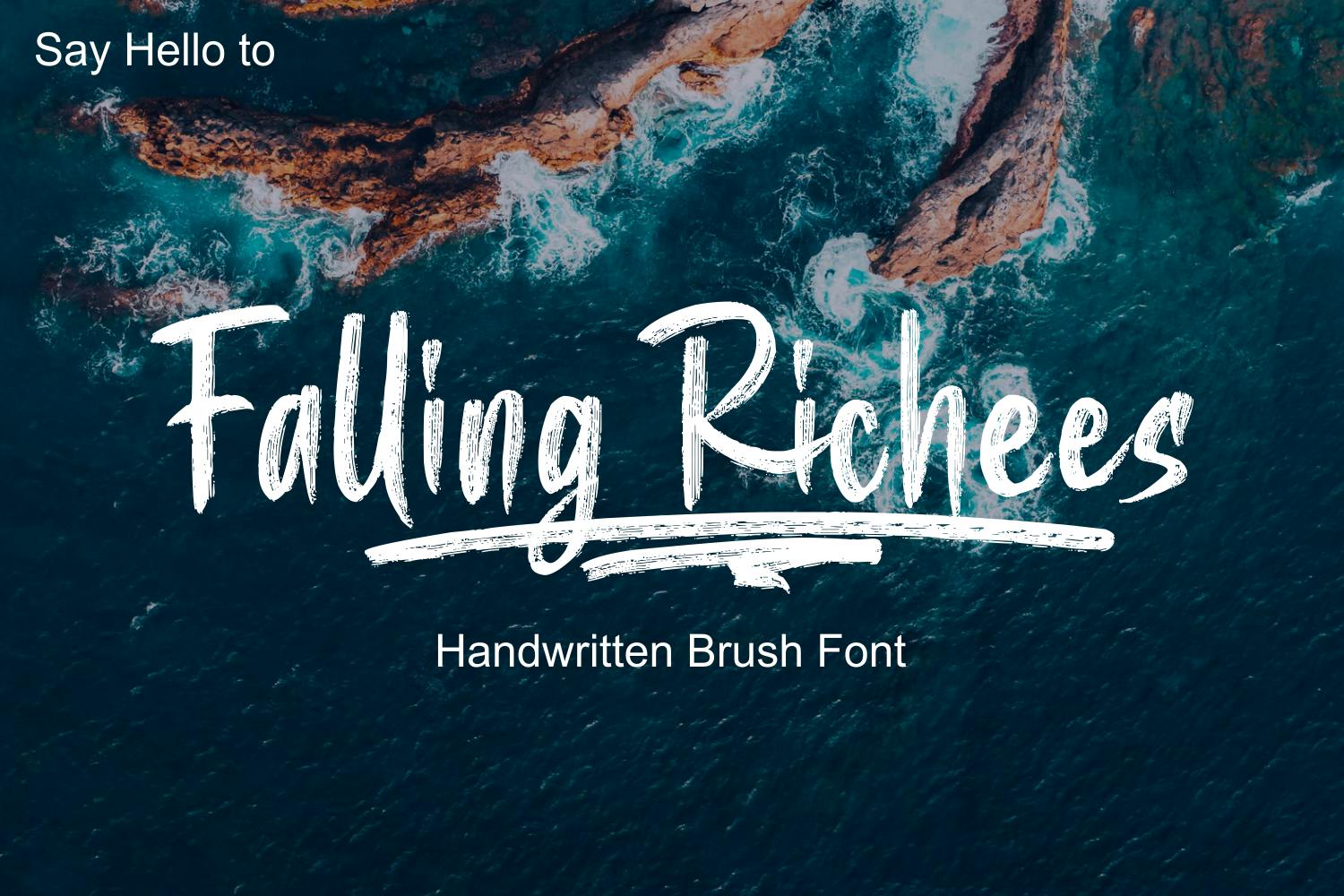
Falling Richees - Authentic Dry Brush Font
The Falling Richees - Authentic Dry Brush Font is perfect for artistic branding, hand-painted signage, creative poster design, artisan product labels, expressive logo creation, bohemian packaging, street art projects, and authentic handmade business communications.
What makes Falling Richees - Authentic Dry Brush Font so exciting is its masterful replication of genuine dry brush techniques that captures the raw energy and spontaneous beauty of authentic hand-painted lettering. This extraordinary typeface features the characteristic texture and irregular coverage that occurs when paint runs low on the brush, creating organic gaps, splits, and variations that define true dry brush artistry. Each character displays the natural imperfections and expressive qualities that make dry brush lettering so compelling, with bristle marks and paint variations that bring immediate authenticity and artistic credibility to any design project. Its distinctive character makes it perfect for brands and artists who want to convey creativity, authenticity, and the unrepeatable beauty of handmade artistry.
The Falling Richees - Authentic Dry Brush Font family includes comprehensive variations that showcase different aspects of dry brush technique and artistic expression. The collection typically features multiple brush weights from light coverage to heavy application, each maintaining the signature dry brush characteristics and organic texture variations. Many versions include alternative characters with varied bristle effects, contextual ligatures that enhance the natural paint flow, decorative swashes with enhanced dry brush details, and extended character sets supporting international languages for global artistic and creative applications.
The font's remarkable authenticity shines across both digital and print applications, from artistic websites to hand-painted style packaging design. Its organic dry brush texture maintains visual impact and artistic credibility at various sizes while preserving the distinctive handmade character that makes dry brush lettering so sought after by contemporary designers.
Professional artists and creative agencies worldwide trust this authentic dry brush font for projects requiring genuine artistic expression and handmade aesthetics. Whether developing brand identities for creative businesses, designing packaging for artisan products, or creating promotional materials for artistic events, this font delivers the perfect combination of authentic dry brush beauty and professional versatility.